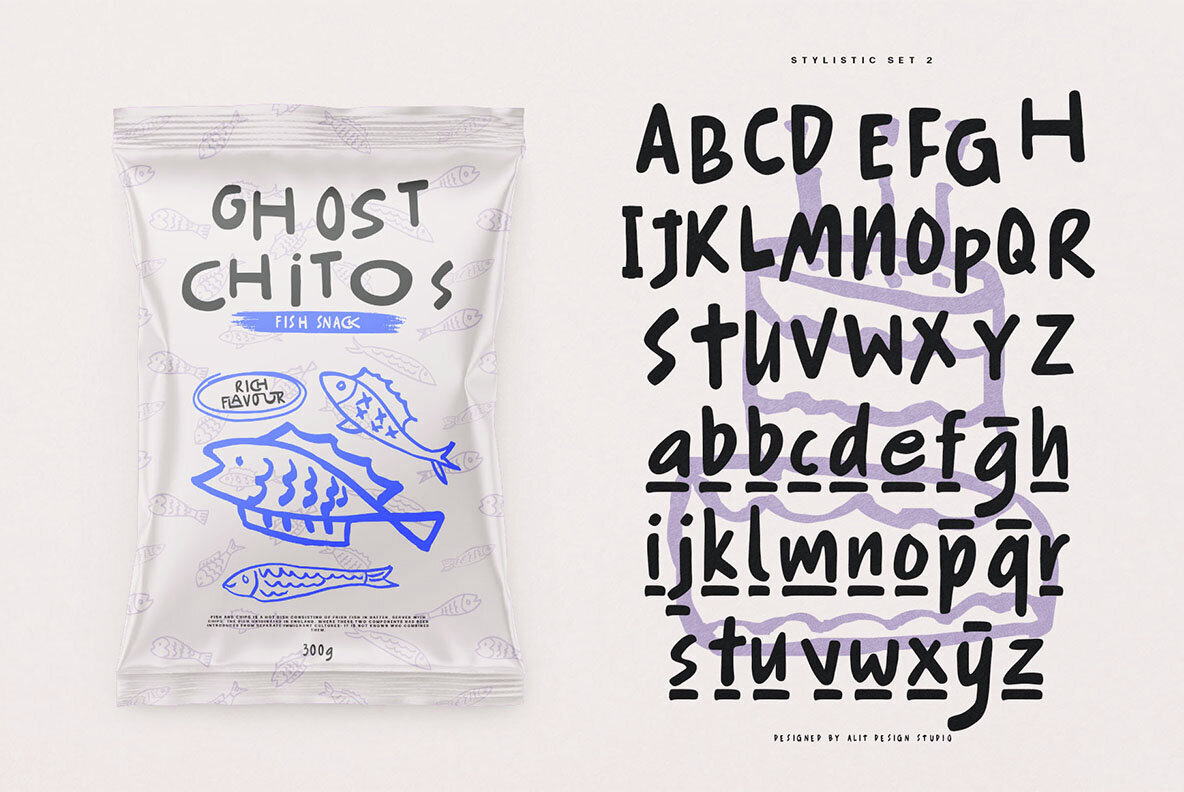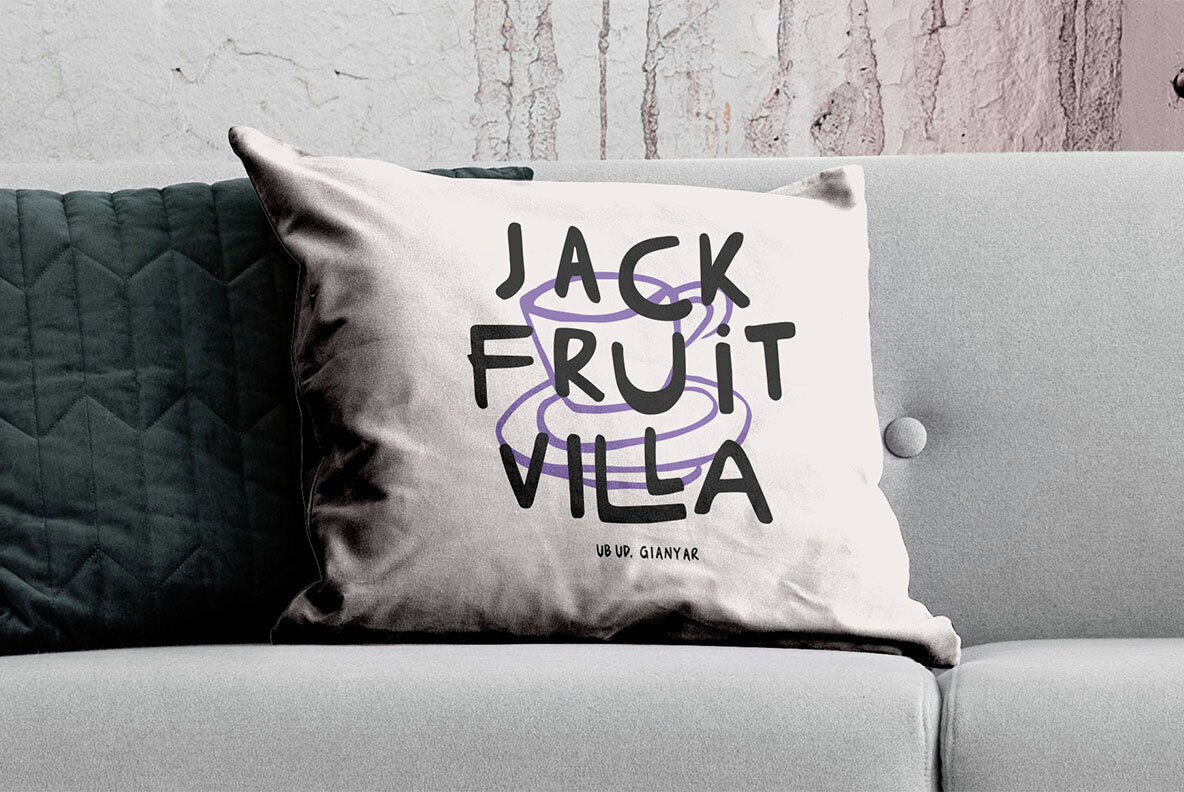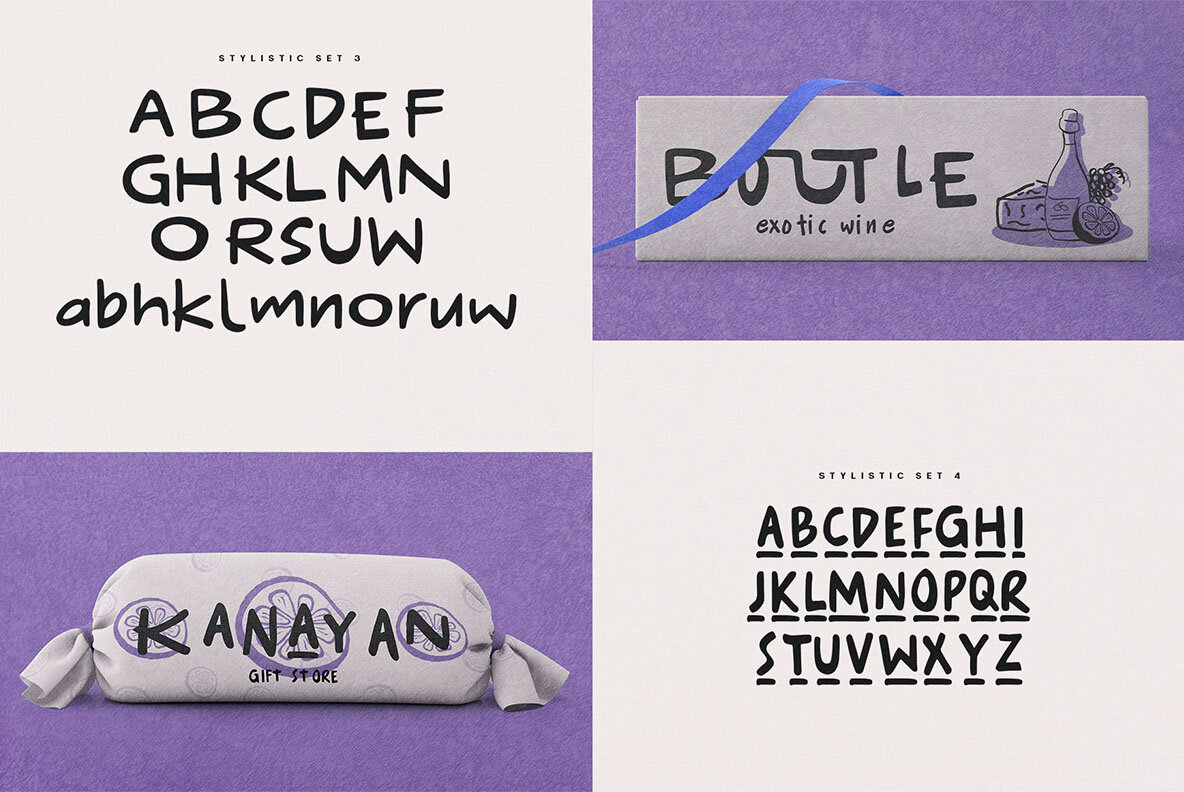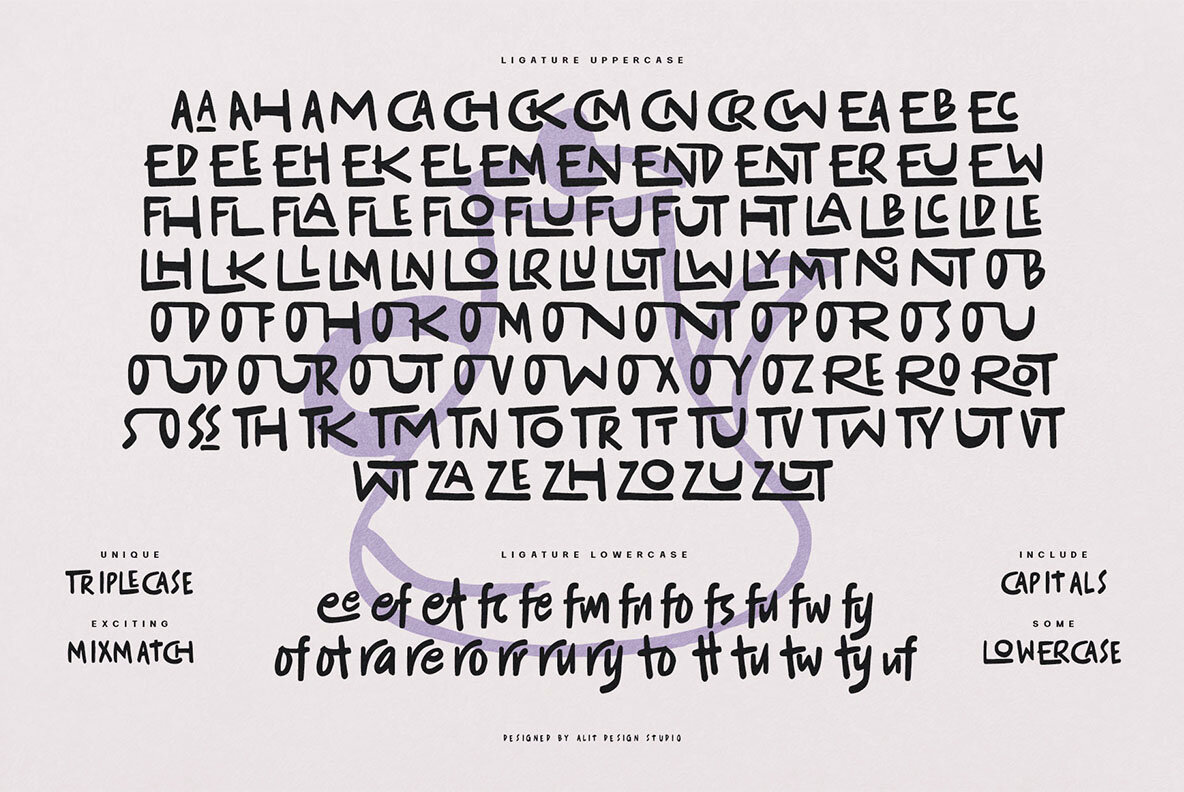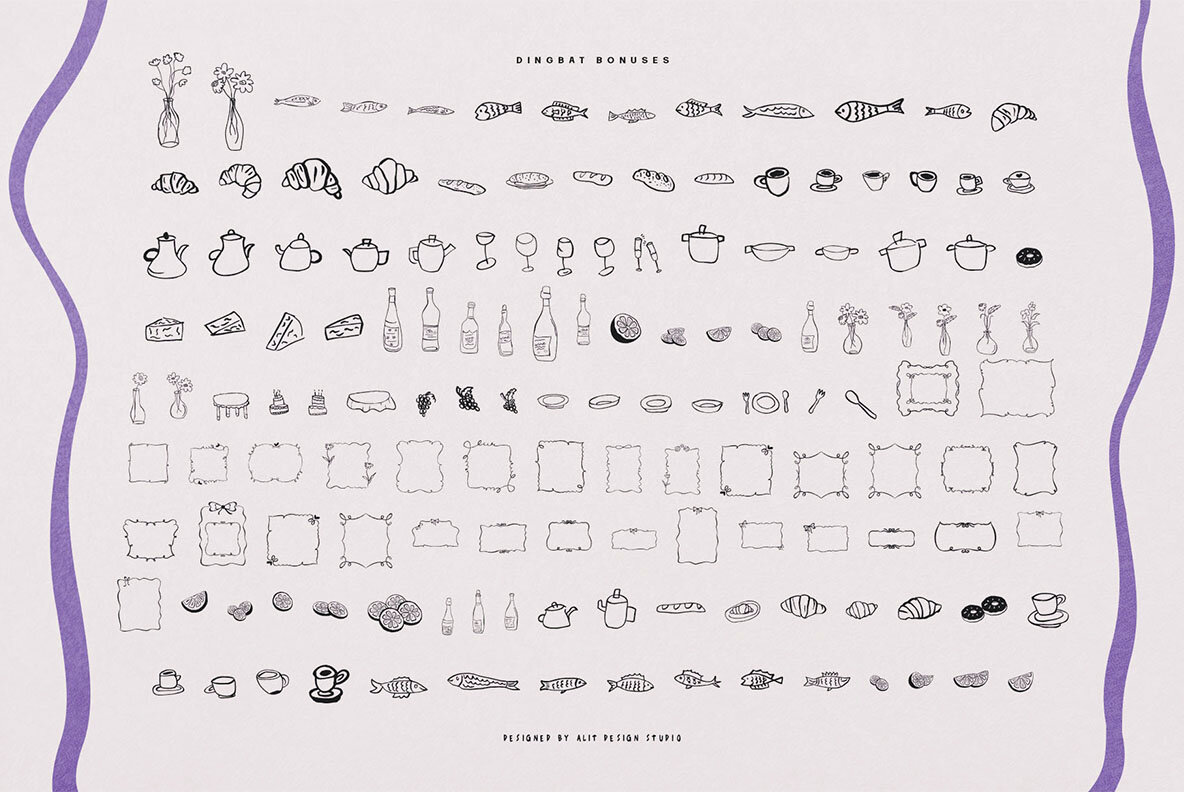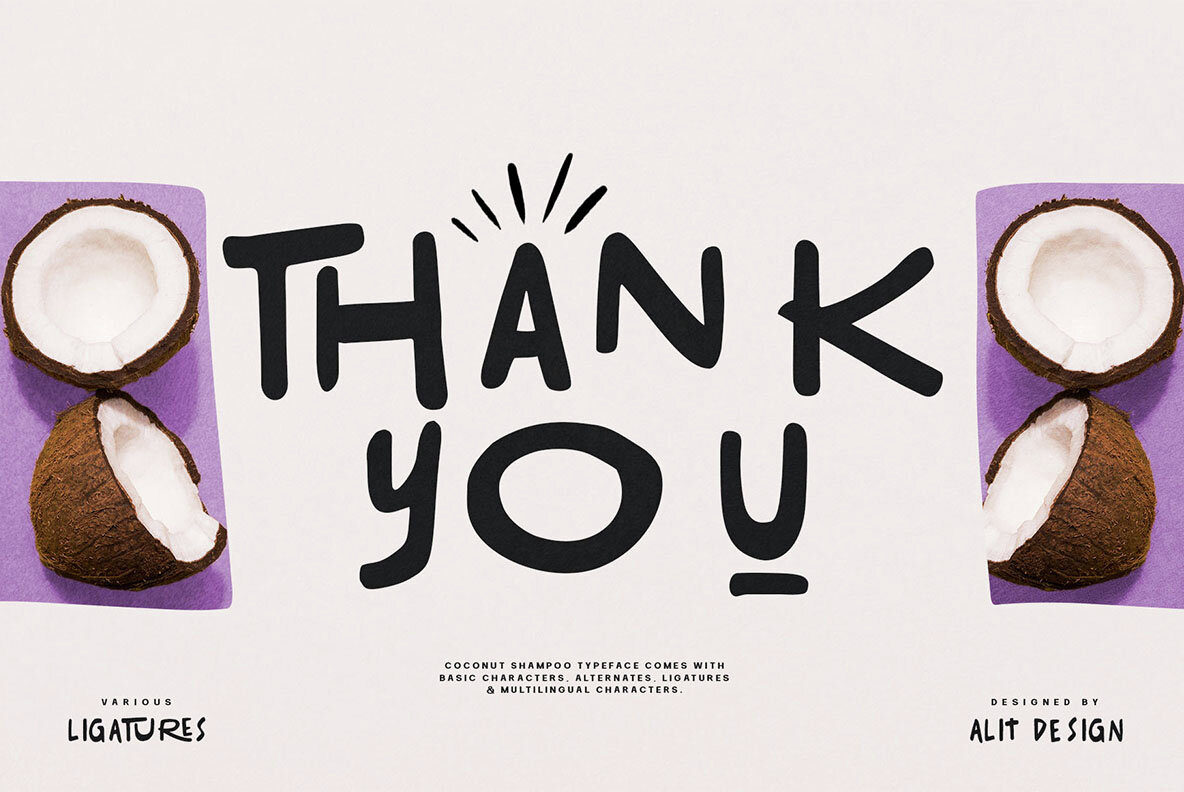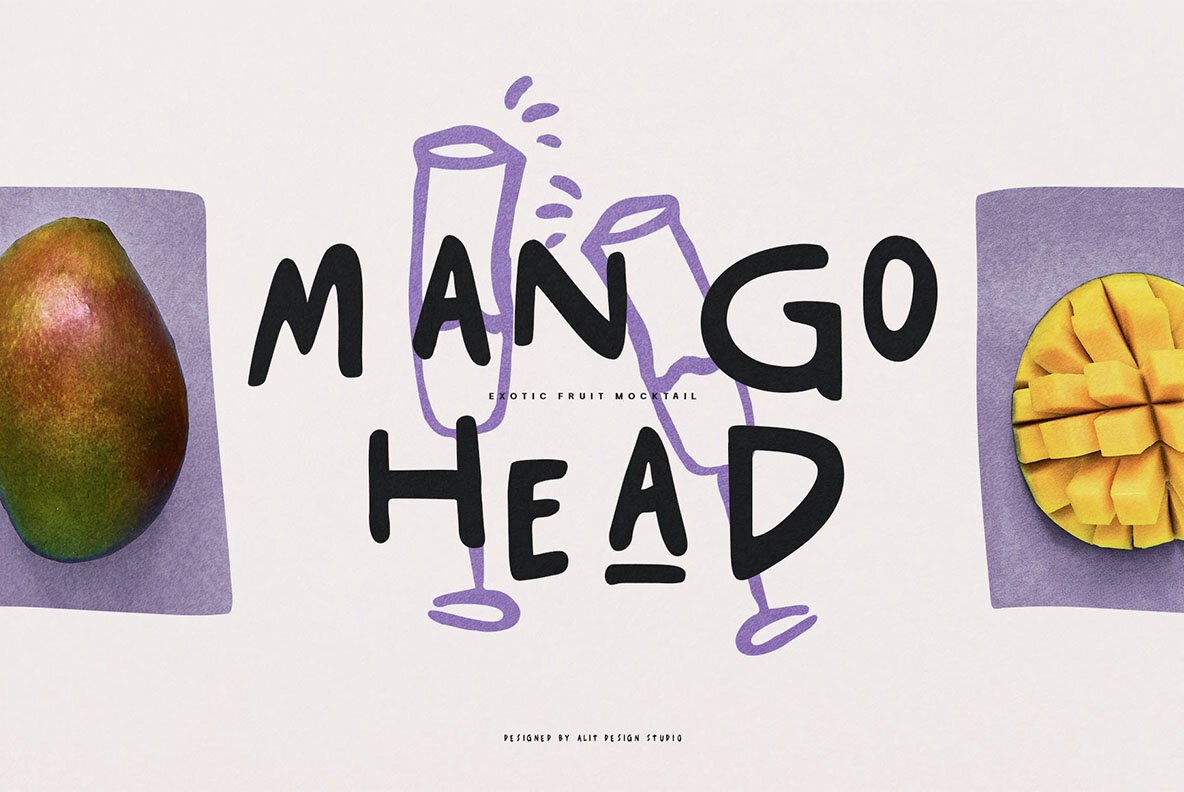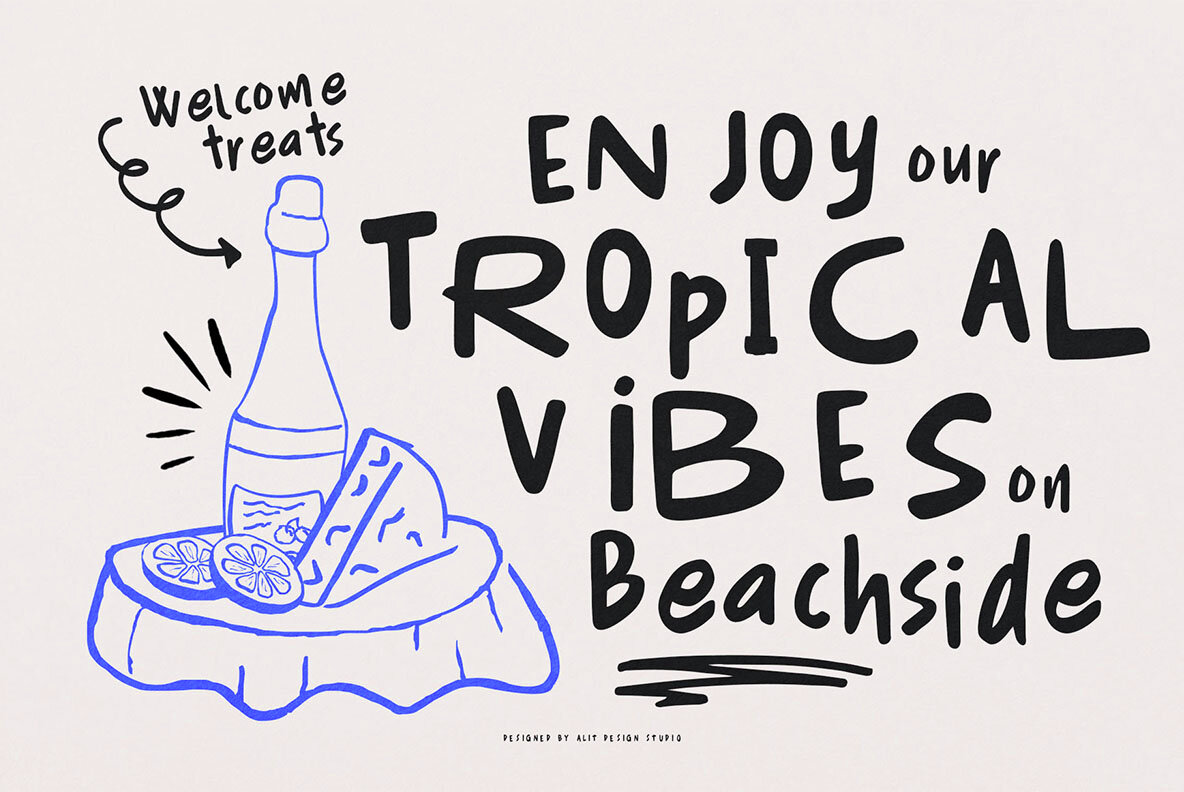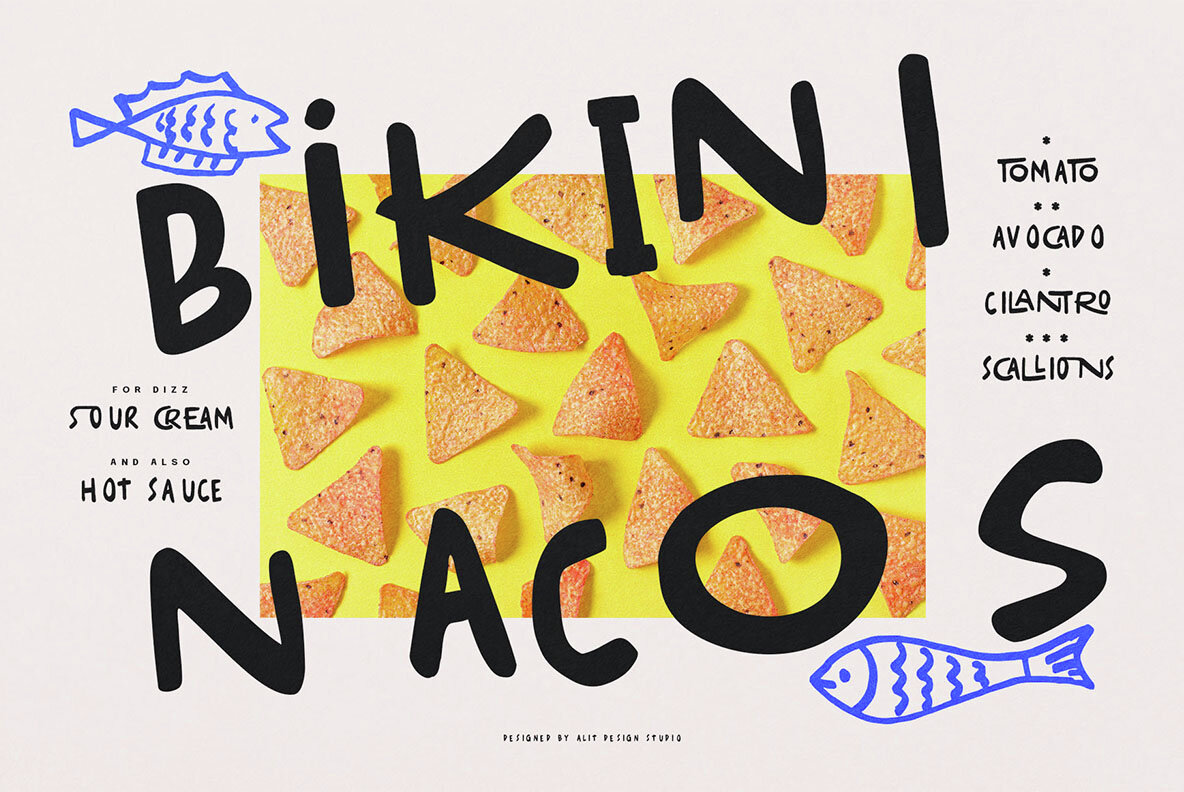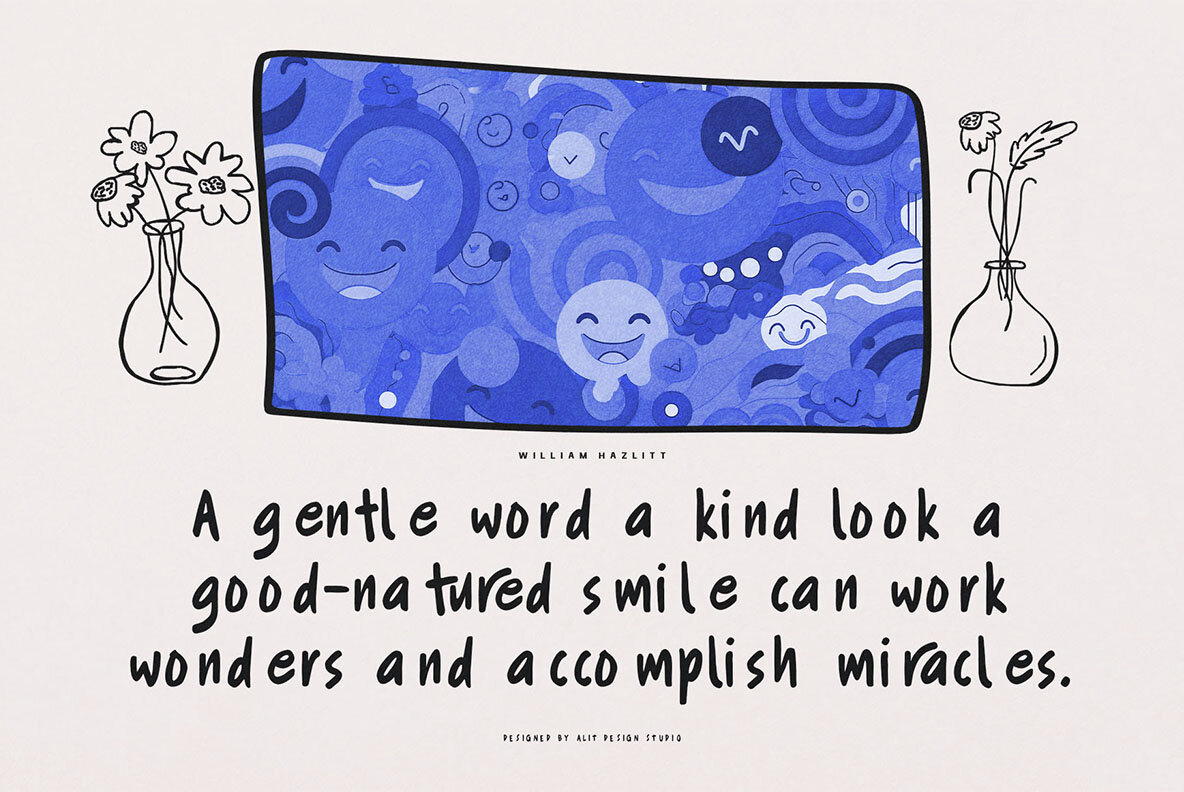
Coconut Shampoo Font
Introducing "Coconut Shampoo" - where handwritten charm meets dynamic flair, creating a uniquely aesthetic experience for your designs. With its playful strokes and natural flow, this font captures the essence of creativity and authenticity. Featuring 755 characters, "Coconut Shampoo" offers a wealth of possibilities for your projects. From alternative glyphs to intricate ligatures, each character is meticulously crafted to add depth and character to your text. But the beauty of "Coconut Shampoo" goes beyond its appearance. With PUA Unicode encoding, this font ensures seamless compatibility across various platforms and software, giving you the freedom to express yourself without limitations. And let's not forget about versatility. "Coconut Shampoo" boasts multilingual support, allowing you to communicate your message effectively in different languages and regions. Whether you're designing logos, branding materials, invitations, or anything in between, "Coconut Shampoo" brings a touch of whimsy and sophistication to every project. Embrace the handwritten revolution and let your creativity flow with "Coconut Shampoo."